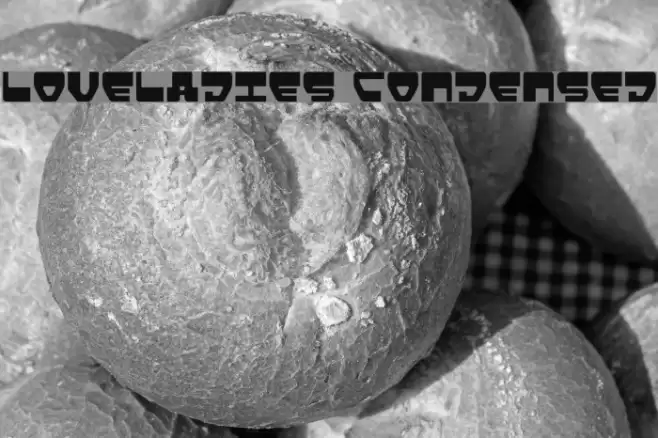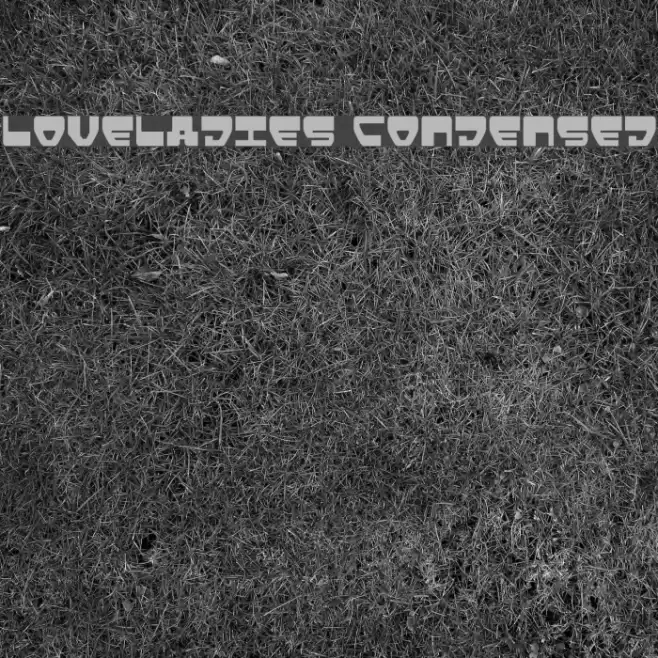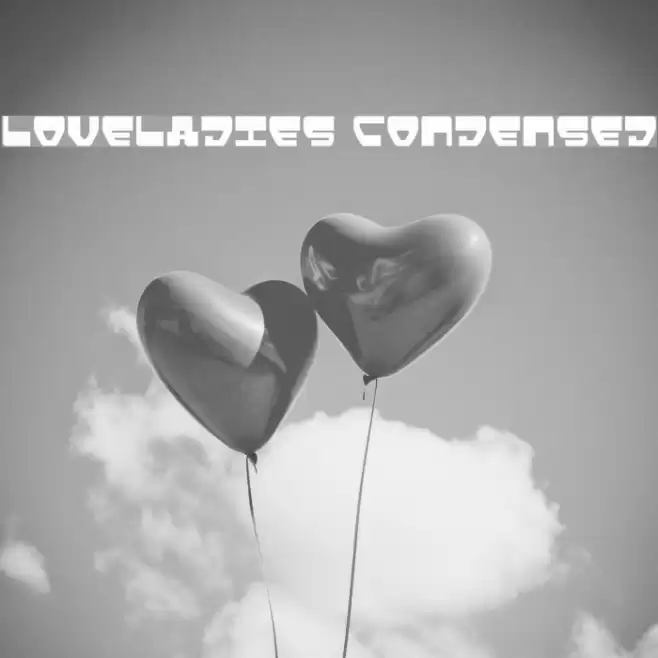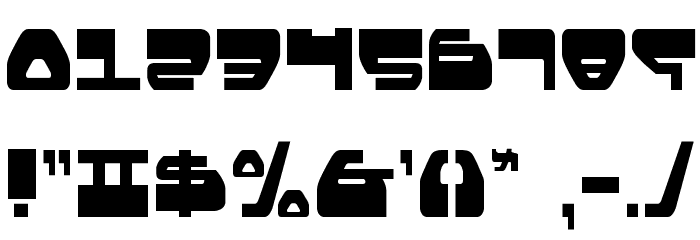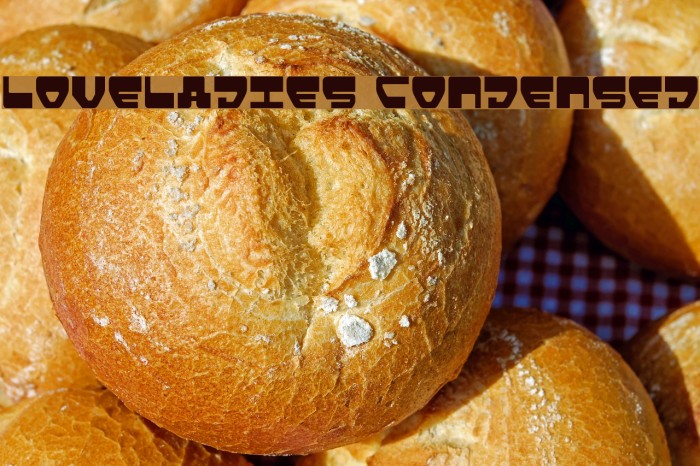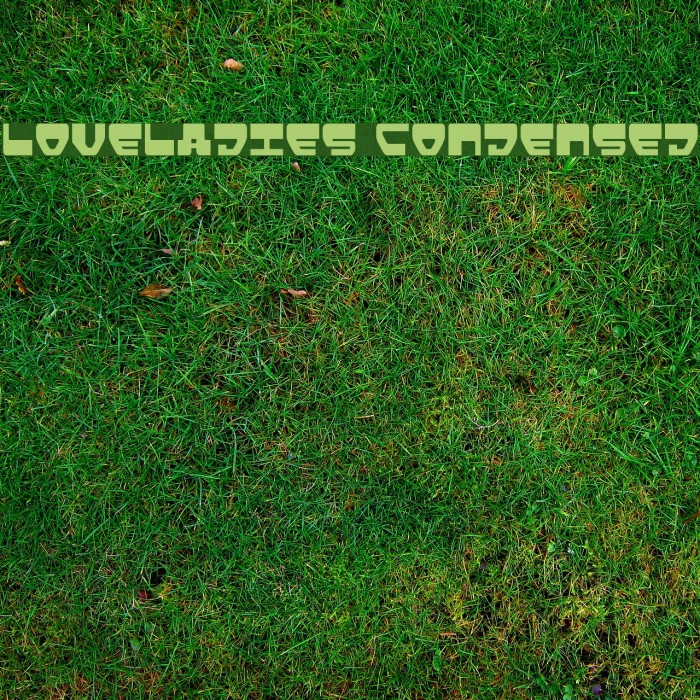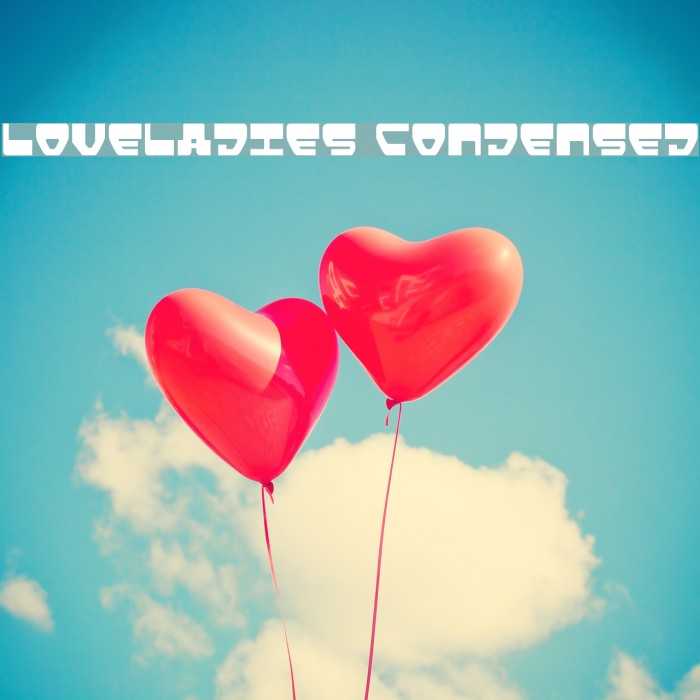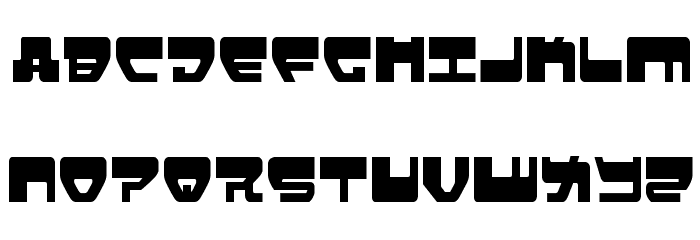
Loveladies Condensed Font
Loveladies Condensed Description
This font exhibits a bold and futuristic style with a condensed structure. The characters are uniquely designed with geometric shapes, creating a modern and edgy appearance. The uppercase and lowercase letters maintain a consistent width, enhancing the condensed look. The numbers and special characters follow the same design principles, ensuring uniformity across the font. The boldness of the strokes adds to the font's striking presence, making it suitable for attention-grabbing designs. The overall style is distinctly modern, with a touch of avant-garde flair, making it ideal for creative projects that require a strong visual impact.
A bold, futuristic font with a condensed and geometric design from Uncategorized fonts.
- Proposed Projects: Ideal for sci-fi themed posters, modern branding, innovative product packaging, and digital media projects.